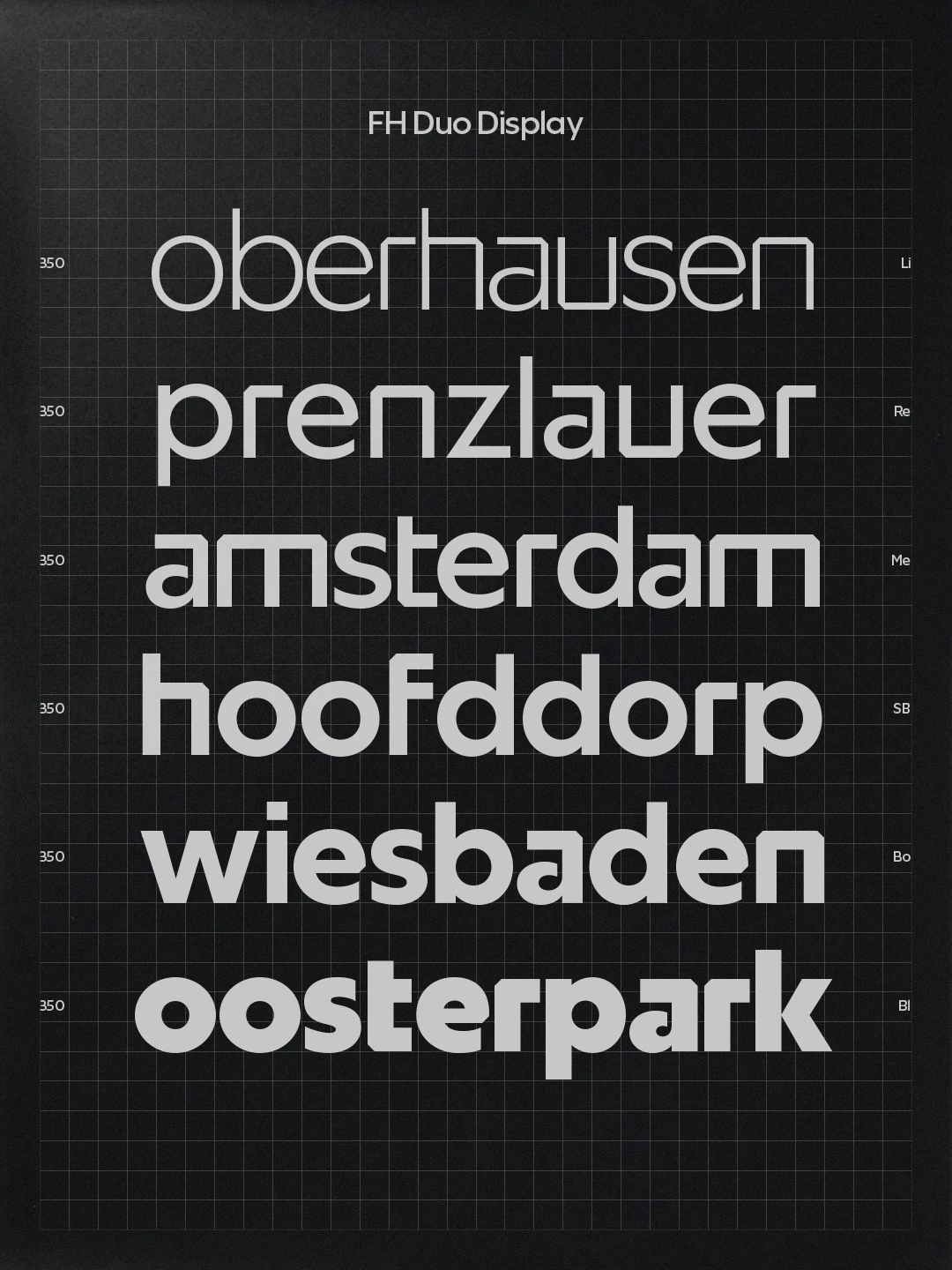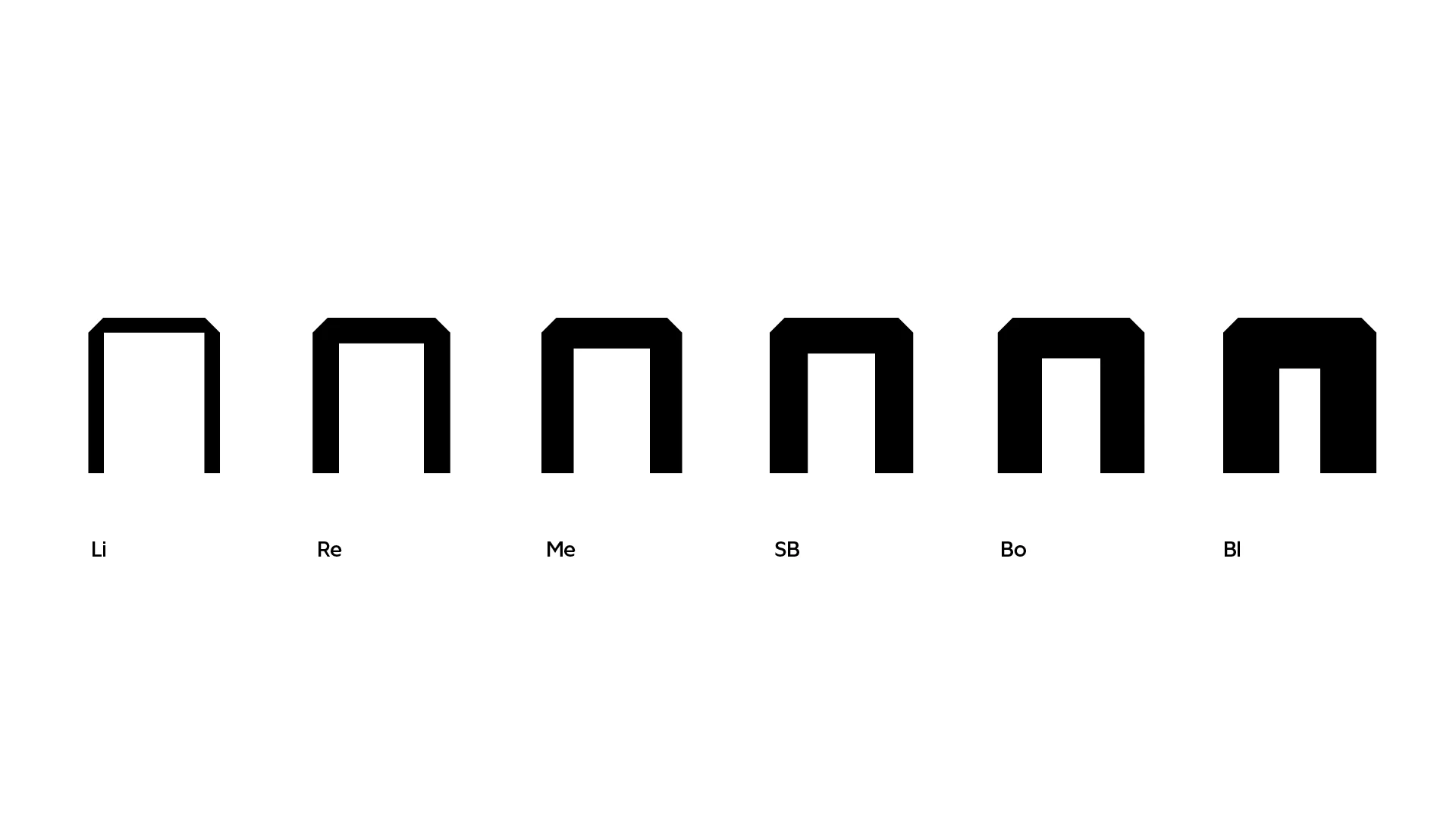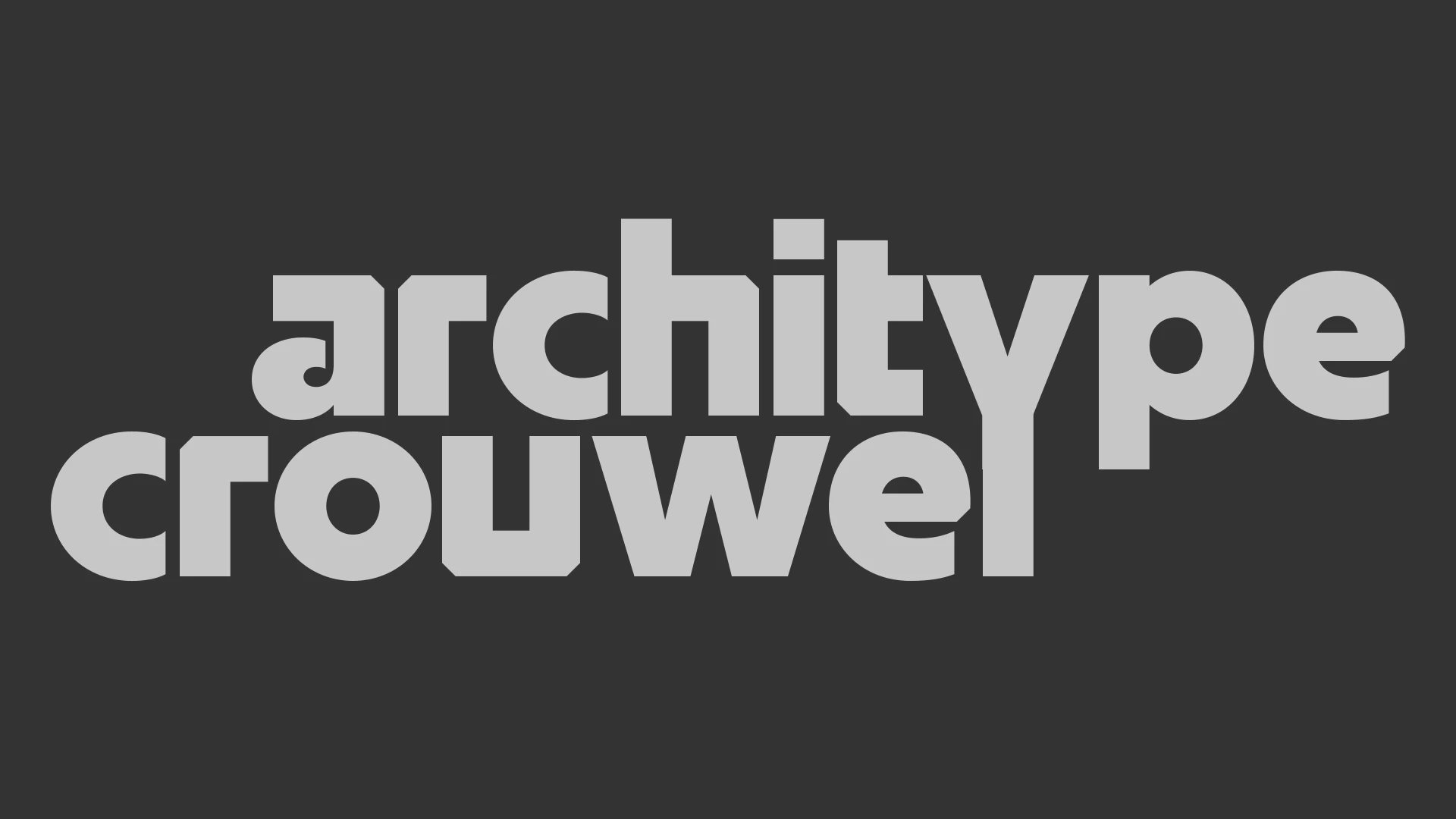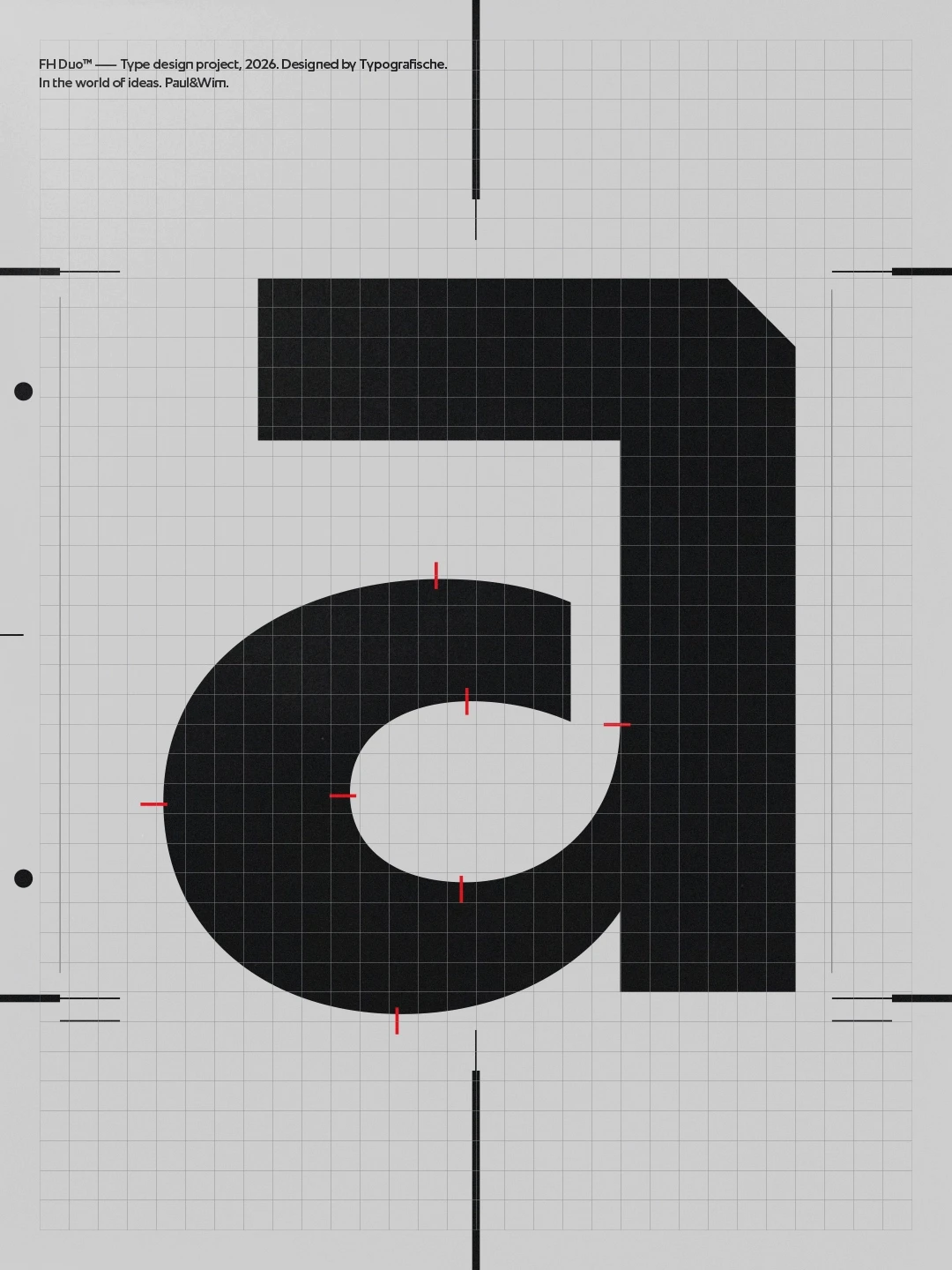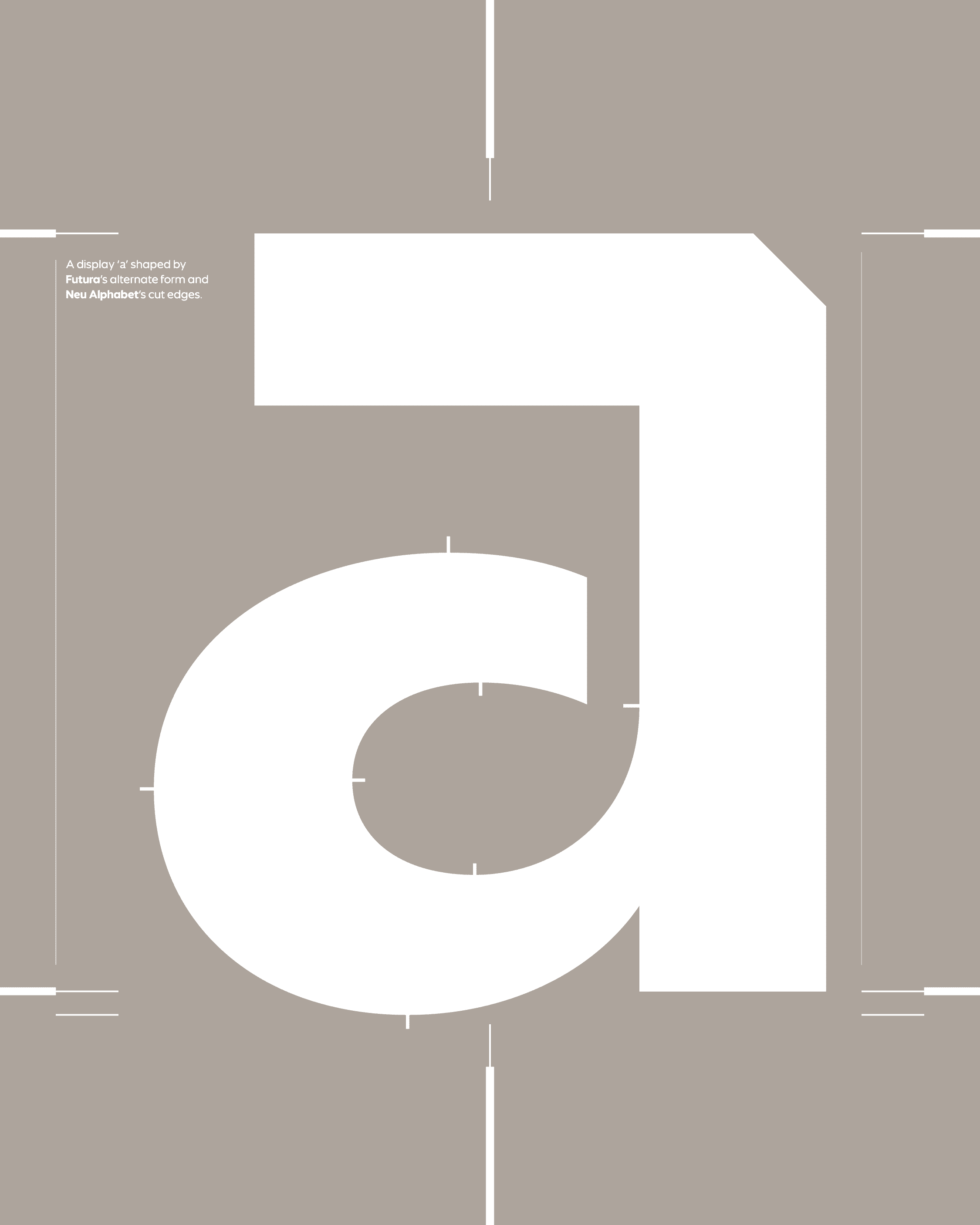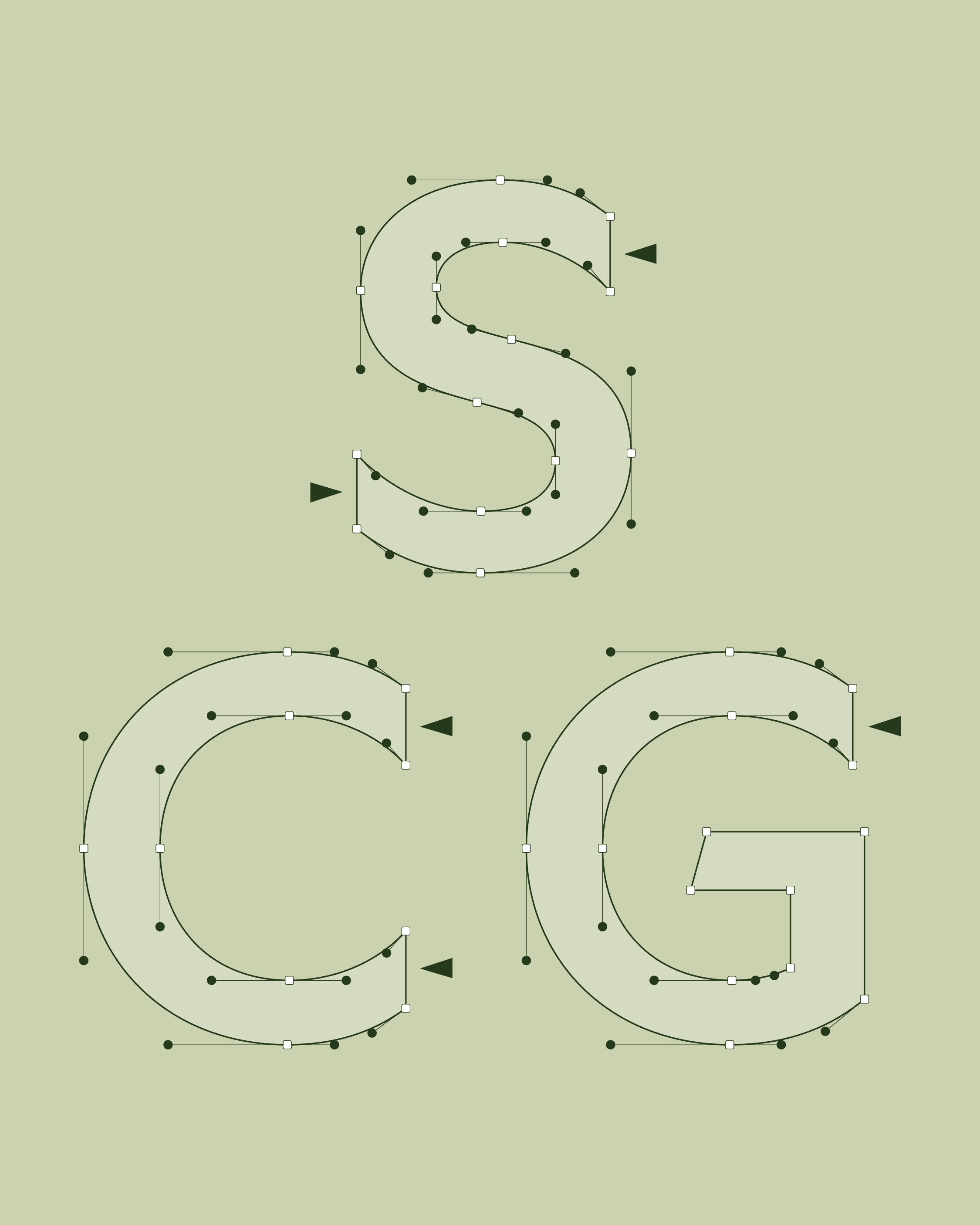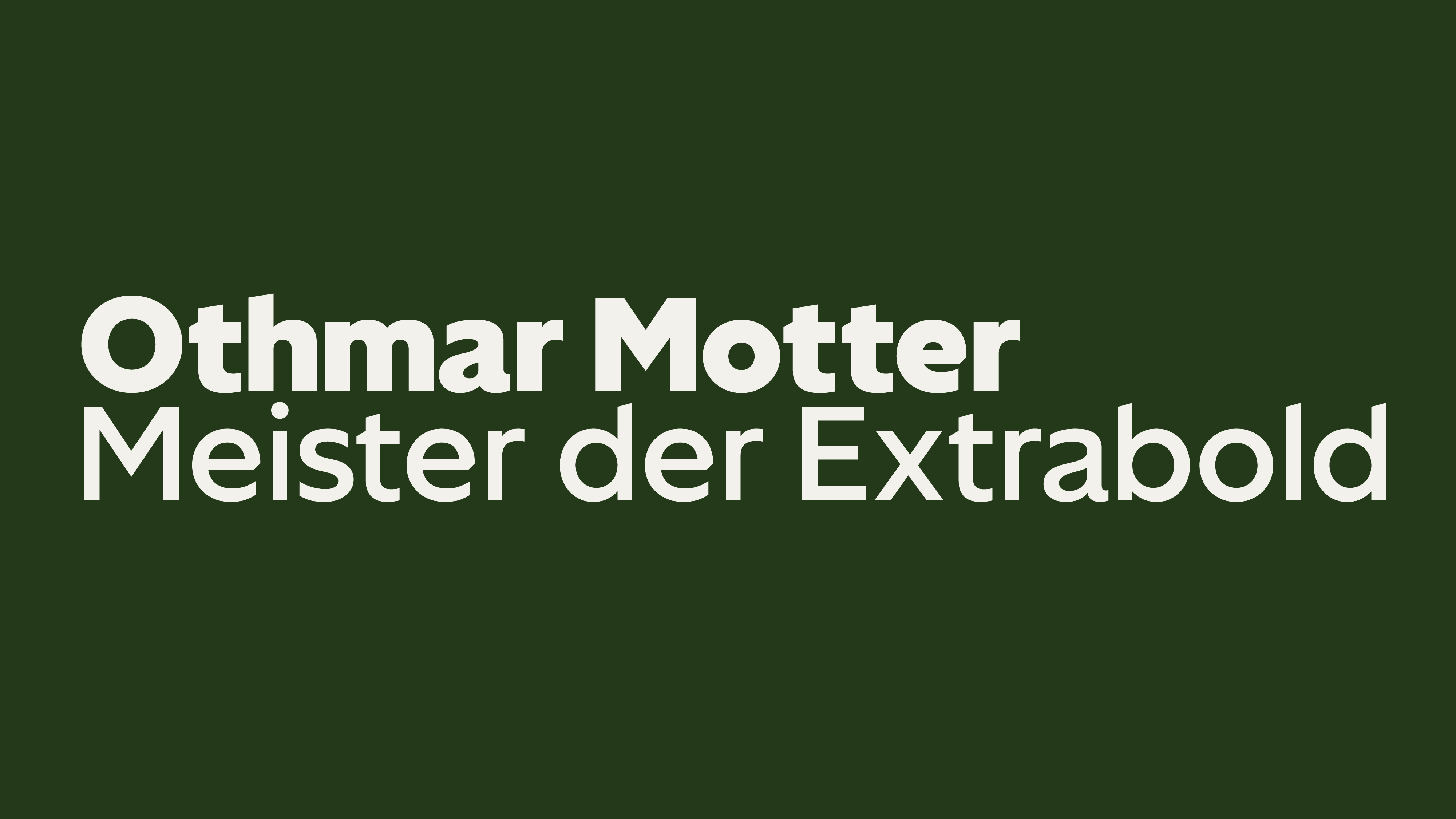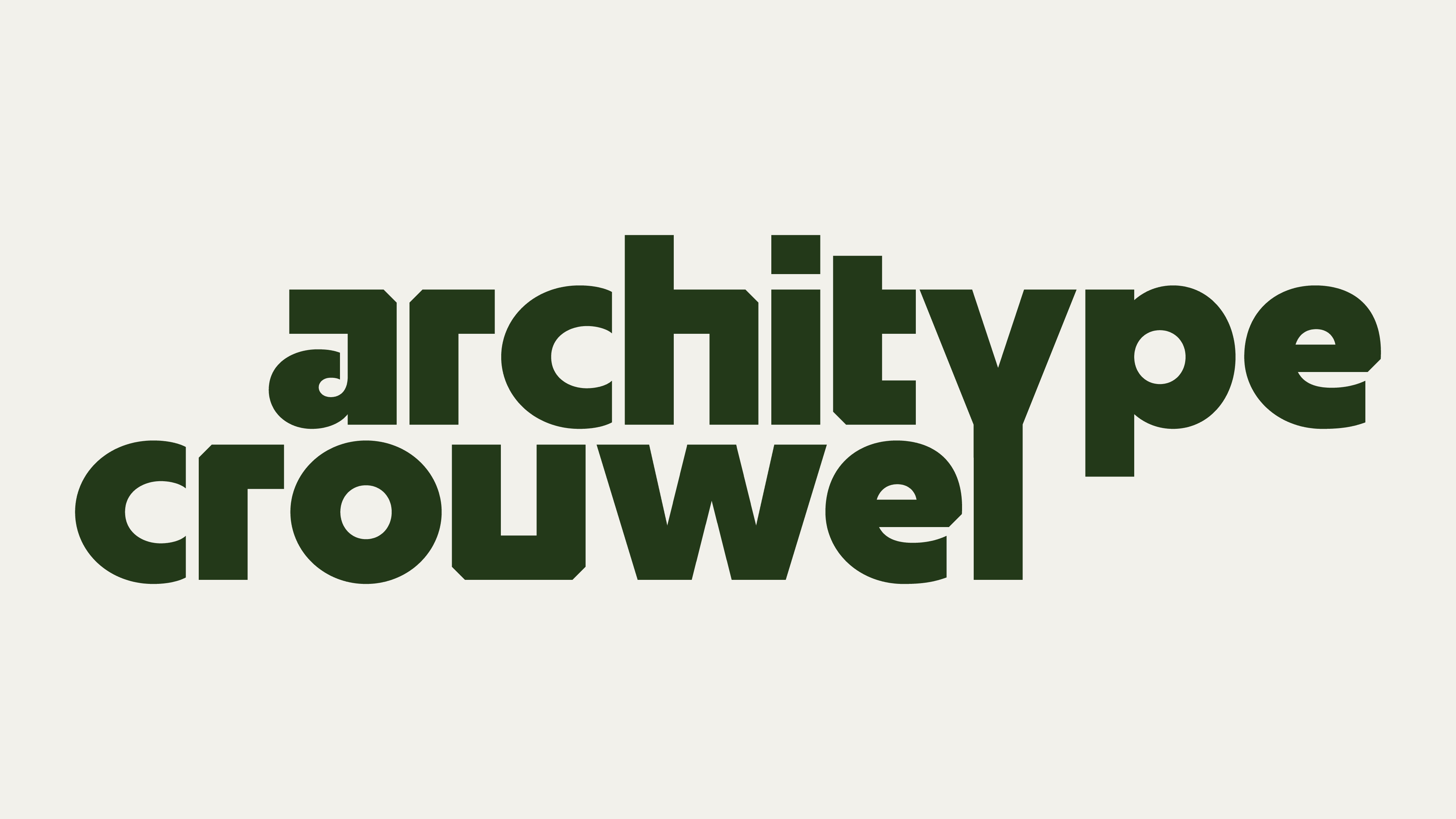
FH Duo is a contemporary geometric sans serif family that reinterprets modernist typography through two distinct perspectives. The project is rooted in the contrast between Paul Renner’s humanized geometric approach in 'Futura' and Wim Crouwel’s system-driven, experimental mindset expressed in 'Neu Alphabet'. Rather than merging these references historically, FH Duo frames them as a timeless meeting of ideas.
The core structure of FH Duo is based on controlled proportions, optically balanced forms, and a calm typographic rhythm. Geometry is softened through optical adjustments, prioritizing clarity and readability. In the Display set, Crouwel’s influence becomes more pronounced through cut edges, mechanical terminals, and more graphic, system-oriented decisions.
The family is divided into FH Duo and FH Duo Display. FH Duo is designed for text and extended reading, offering a balanced and functional tone, while FH Duo Display provides a more expressive and experimental voice for headlines, identities, and visual statements. Sharing the same geometric foundation, the two subfamilies work together to create a coherent dialogue between human-centered form and systematic structure.
Classification: Geometric Sans-Serif